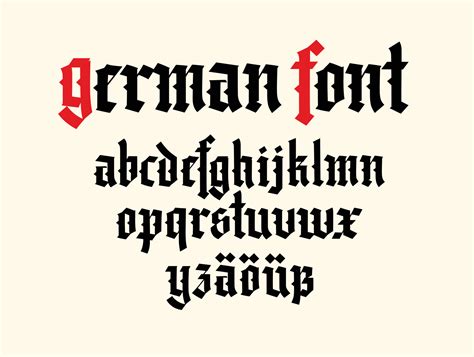
Unleash Your Dark Side with the Exquisite German Gothic Font Generator
Are you craving a way to express your inner darkness through your writings and designs? Look no further than the mesmerizing German Gothic font generator! With its intricate and distinct style, this font is sure to unleash your creativity and captivate your audience.
Did you know that Gothic fonts originated in medieval Europe and were heavily influenced by architecture and calligraphy? Fascinating, right?
But why settle for a basic Gothic font when you can enhance your designs with the stunning intricacy of German Gothic? This font is a work of art in itself, featuring unique curves and angles that make each letter a masterpiece.
Unleash your dark side with the exquisite German Gothic font generator today. Whether you're designing a logo, creating a poster, or simply adding some flare to your writing, this font is the solution you've been searching for.
But don't just take our word for it. Try it out for yourself and see the magic it can add to your designs. Get ready to stun and impress your audience with the captivating allure of German Gothic!
The Appeal of Gothic Fonts
Gothic fonts have been widely used in many design mediums because they exude a certain mystique and elegance that other typographies simply cannot match. The dark and ornate aesthetic is immediately recognizable and instantly provides a level of sophistication and intrigue to any design project. From websites to posters, Gothic fonts have become a staple in the world of design.
The German Gothic Font Generator: An Overview
The German Gothic font generator is a free online tool that allows you to create custom Gothic fonts with ease. Its intuitive interface lets you choose from a range of different styles, font sizes, and character sets. You can even add special characters and symbols to give your font a unique touch. The best part? It's completely free to use!
Examples of Gothic Fonts in Design
Gothic fonts have been used in various design projects, including:
- Book covers
- Movie posters
- Music album covers
- Tattoo designs
- Website headers
Why Choose the German Gothic Font Generator?
The German Gothic font generator is a must-try tool for anyone looking to create custom Gothic fonts. Not only is it free, but it also offers a wide range of customization options that allow you to create truly unique and beautiful fonts. The quality of output is high, making it a suitable alternative to paid font generators. Plus, it's easy to use and produces fast results.
Making a Statement with Gothic Fonts
Gothic fonts have a timeless elegance that makes them perfect for creating eye-catching designs. They offer a sense of mystery and intrigue that draws people in and makes them curious. Whether you're designing a book cover, a poster, or a website header, using a Gothic font can help you make a bold statement and stand out from the crowd.
Finding Inspiration for Gothic Font Designs
If you're looking for inspiration for your Gothic font designs, look no further than historical architecture, literature, and art. The ornate and intricate designs found in Gothic cathedrals and castles can provide plenty of inspiration for creating beautiful Gothic fonts. Reading classic literature like Mary Shelley's Frankenstein or Bram Stoker's Dracula can also spark ideas for Gothic font designs.
In Conclusion
In conclusion, the German Gothic font generator is an excellent tool for creating custom Gothic fonts. It offers a wide range of customization options, is easy to use, and produces high-quality output. Choosing a Gothic font for your design project can bring an instant sense of sophistication and allure to your work. So why not unleash your dark side and give the German Gothic font generator a try?